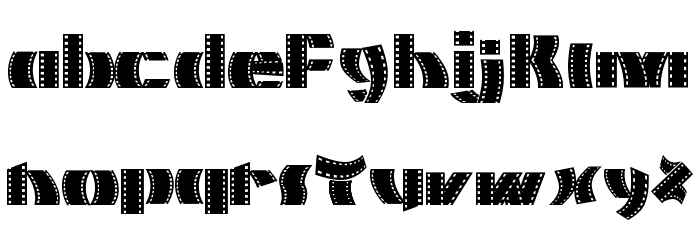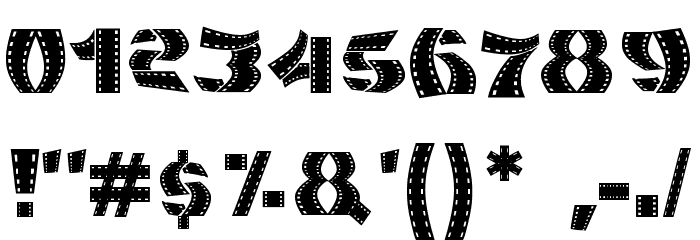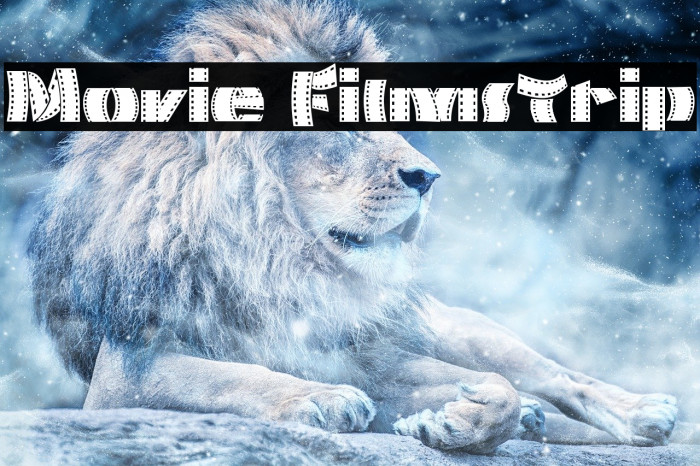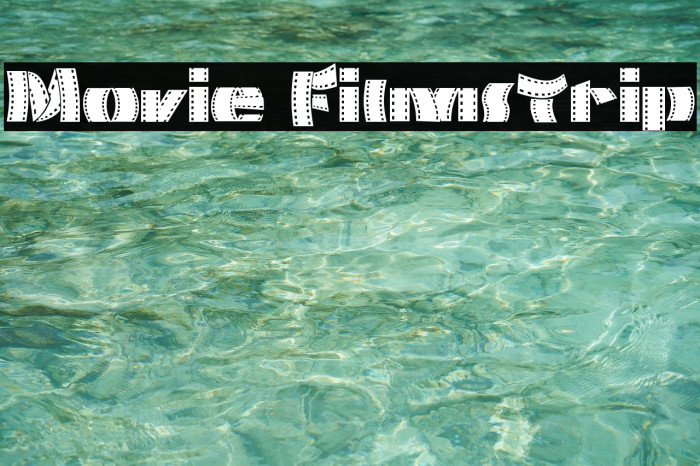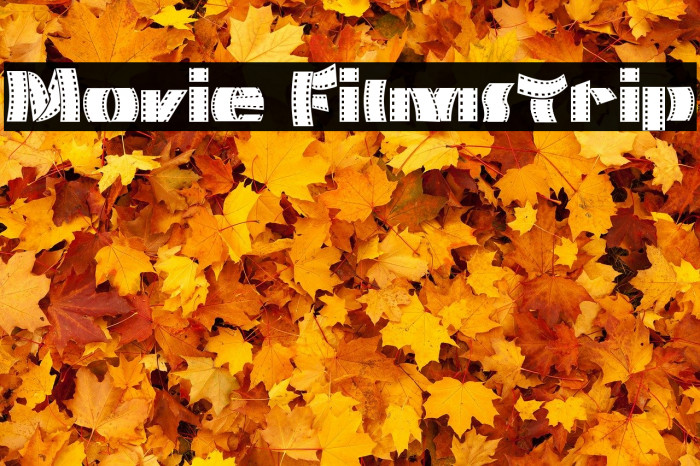
Movie Filmstrip Font
This font features a unique and playful design inspired by filmstrips, with each character resembling a strip of film. The letters are bold and decorative, with a distinct dotted pattern running along the edges, mimicking the perforations found on traditional film reels. The style is highly thematic, making it ideal for projects related to cinema, entertainment, or vintage film aesthetics. The uppercase and lowercase letters maintain a consistent theme, while numbers and special characters are equally stylized, ensuring a cohesive look across all text elements.
A decorative font inspired by filmstrips, featuring bold, thematic characters with a cinematic flair.
- Proposed Projects: Ideal for movie posters, film festival branding, entertainment-themed invitations, or any project requiring a cinematic touch.